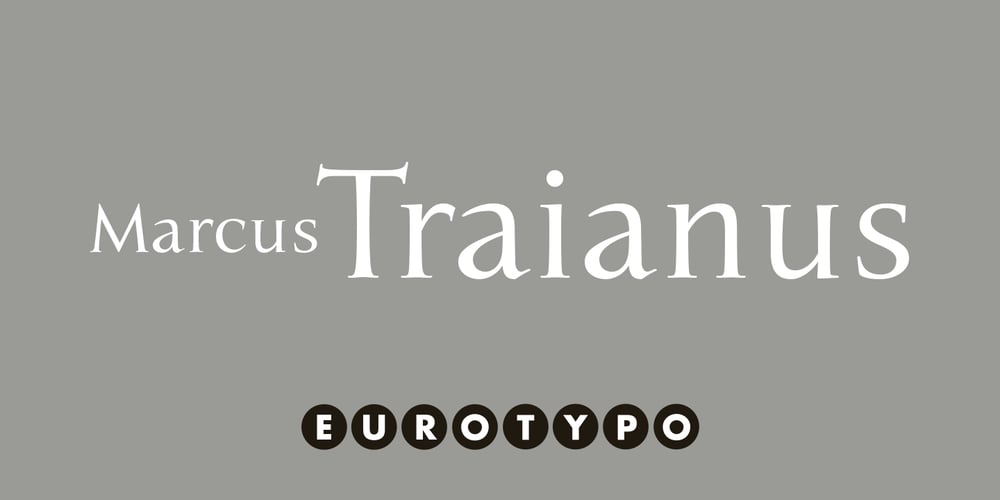
Marcus Traianus Font Family was designed by Olcar Alcaide and published by Eurotypo. Marcus Traianus contains 4 styles and family package options. The famous lettering “Capital Trajana” (inscription at the bottom of the column that bears its name erected in the year114 A.D.) is usually identified as the classic example that defines Imperial Capital forms. However, much earlier, there were already countless examples of Greco-Roman epigraphy of excellent execution, as evidenced by the monumental inscriptions from year 2 b.C. sculpted in the Portico di Gaio e Lucio Cesari in front of the facade of the Basilica Emilia, in the Roman Forum, erected by Augustus, dedicated to his two grandchildren for propaganda and dynastic needs.It has been more than two thousand years and the forms of these letters are still part of our daily life, product of their qualities of readability and beauty. It is probably the added semantic value that have made them an icon full of symbolism that expresses majesty, monumentality, order and universal power.Numerous authors, calligraphers and designers have studied this legacy such as Giovanni Francesco Cresci, Edward Catich, L.C. Evetts, Armando Petrucci, Carol Twombly, John Stevens, Claude Mediavilla, just to name a few.Marcus Traianus font is a fitted version of the two models mentioned, which is accompanied by Small Caps, lowercase (carolingas) and a set of numbers (Indo-Arabics) in addition to the Romans figures and diacritics for Central European languagesMarcus Traianus is presented in two weight: Regular, Italic, Bold and ExtraBold.